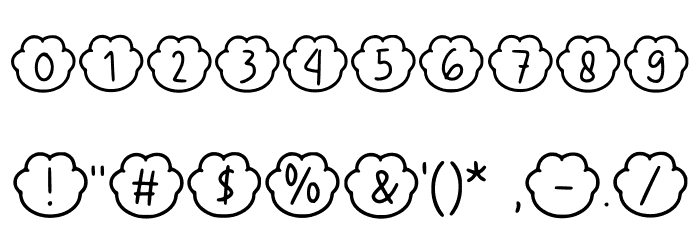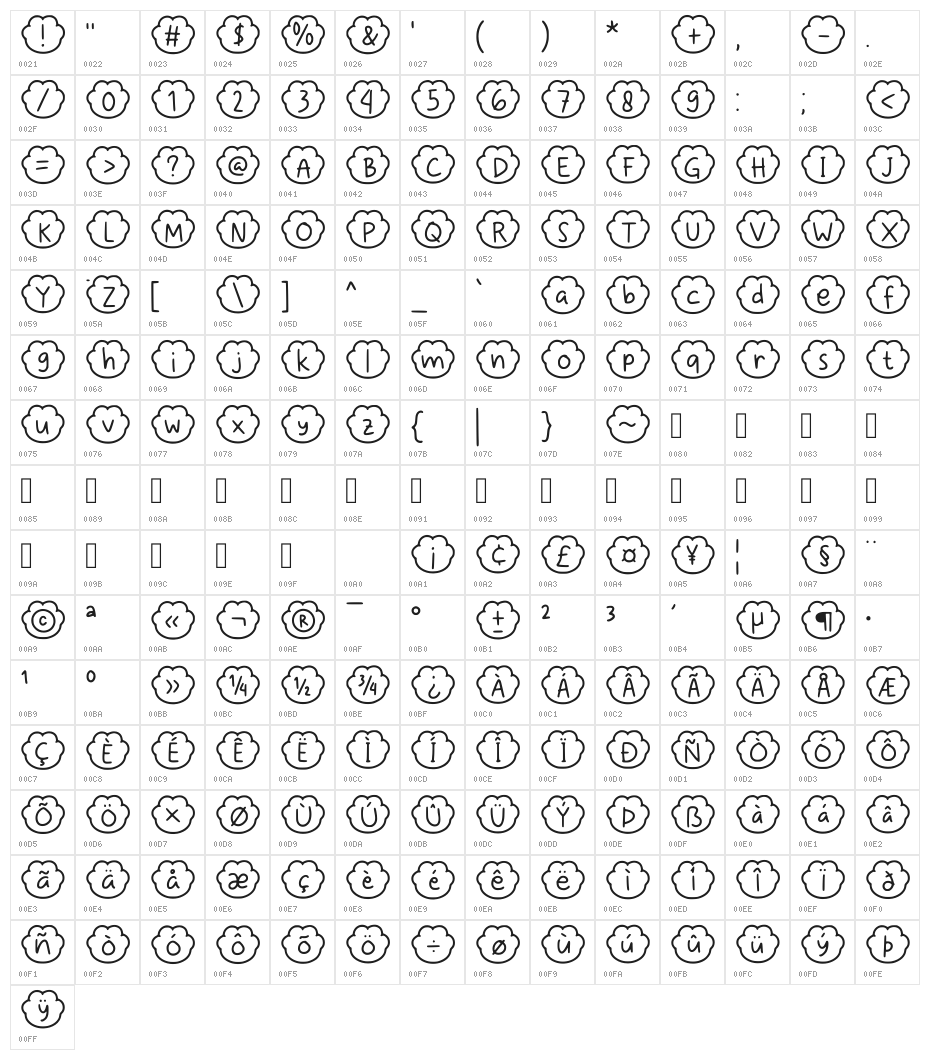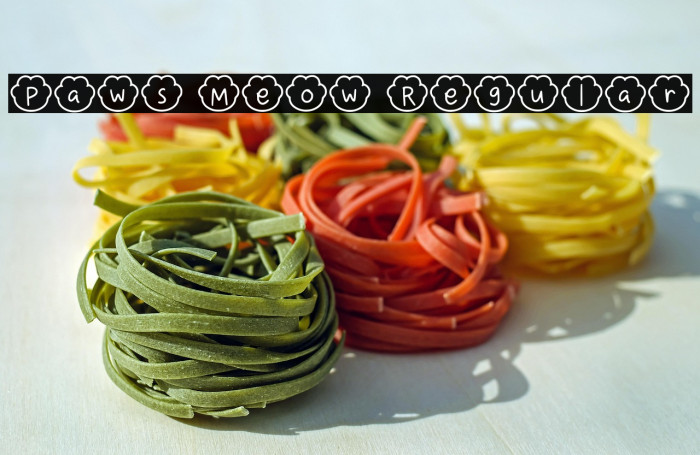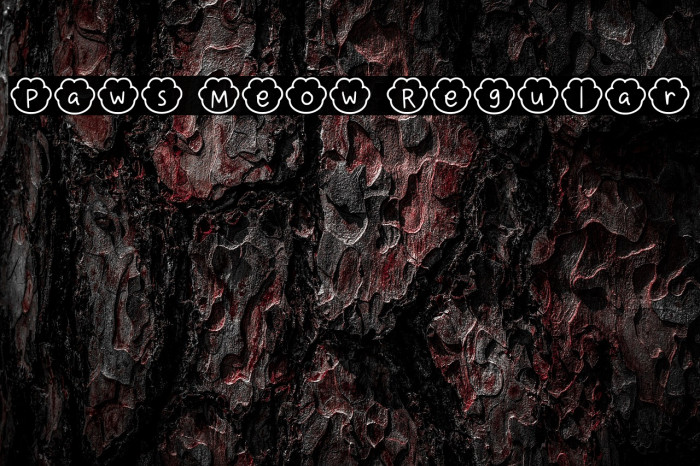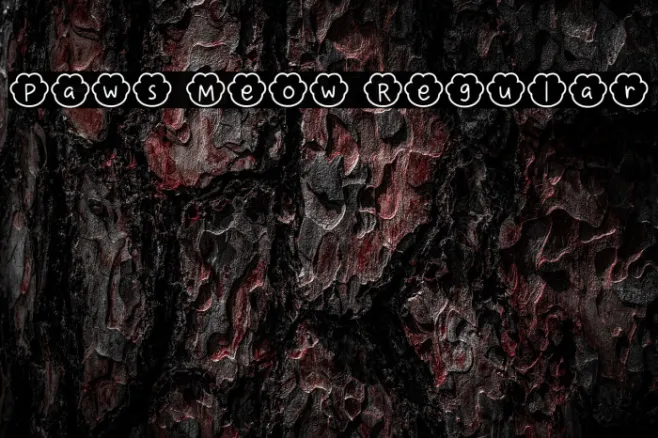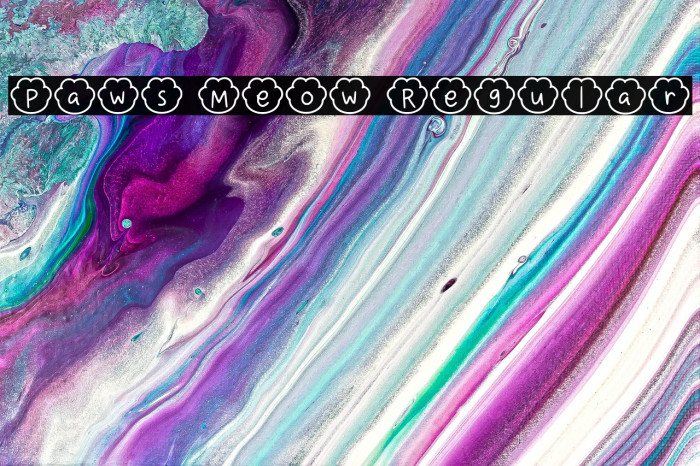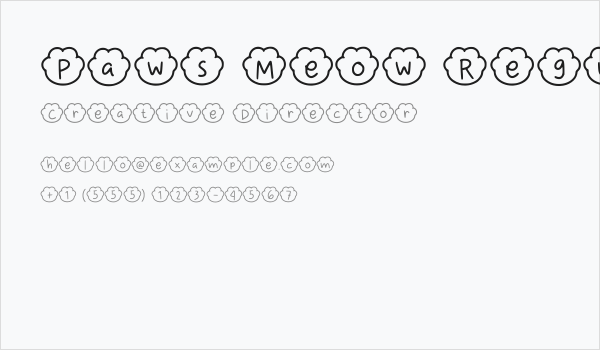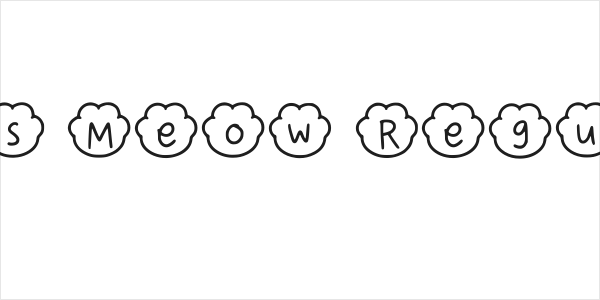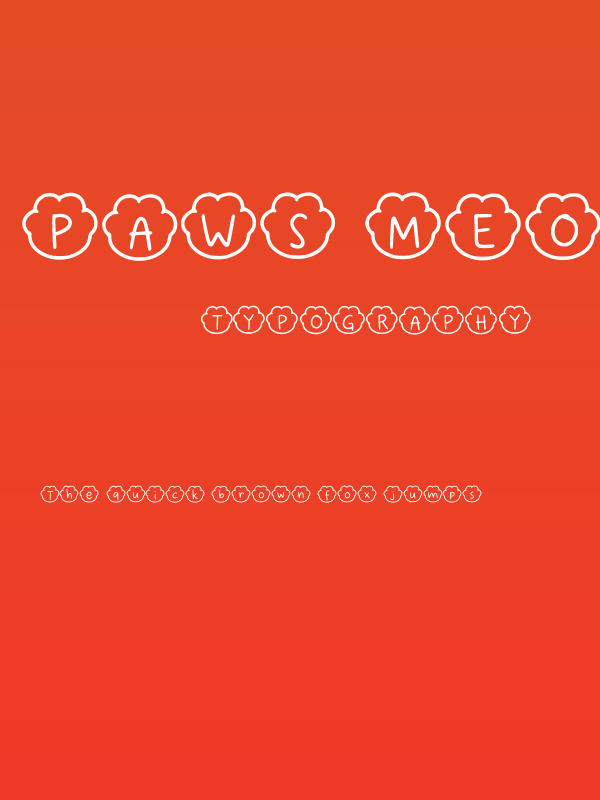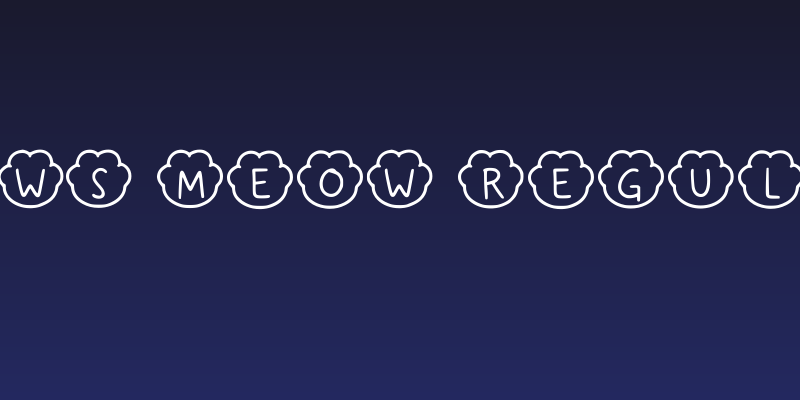
Paws Meow Regular Font
Paws Meow Regular Description
This playful and whimsical font features characters enclosed within cloud-like shapes, giving it a unique and charming appearance. Each letter and number is centered within a fluffy outline, creating a sense of fun and lightheartedness. The font maintains a consistent style across uppercase, lowercase, and numeric characters, ensuring a cohesive look. The rounded edges and soft curves of the cloud shapes add to the friendly and approachable feel, making it ideal for projects aimed at children or for any design that seeks to convey a sense of joy and creativity. The special characters are also enclosed in similar cloud shapes, maintaining uniformity throughout the font.
| Overall Style | Whimsical |
| Use Case | Headlines, Logos, Decorative text |
| Proposed Projects | Ideal for children's books, playful invitations, greeting cards, and educational materials. |